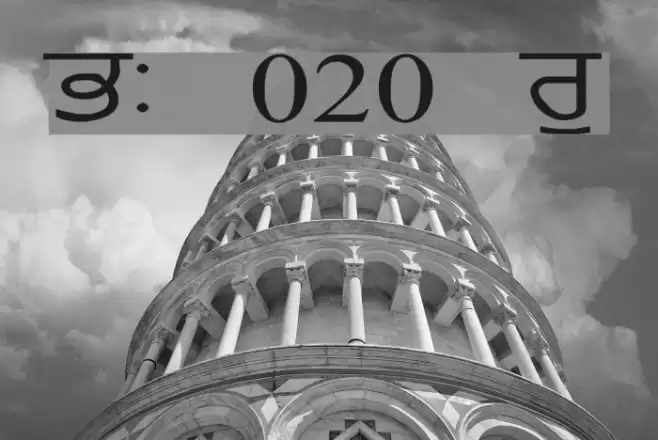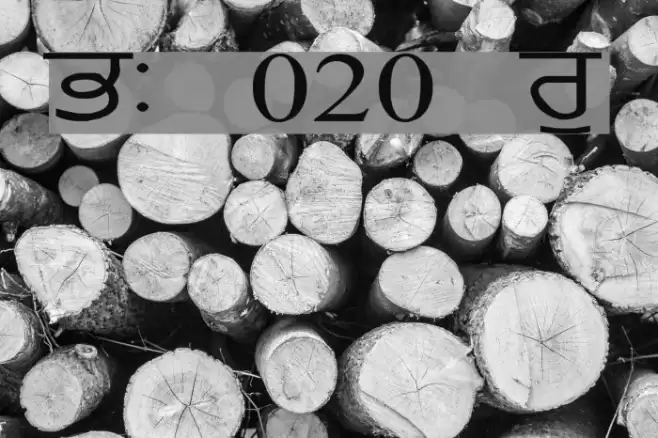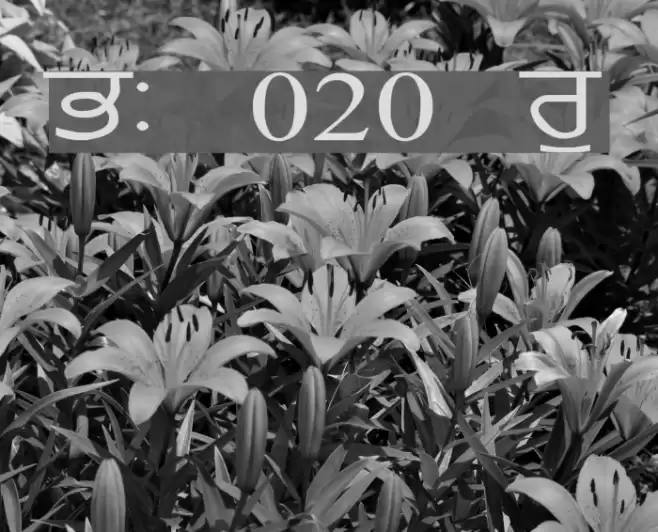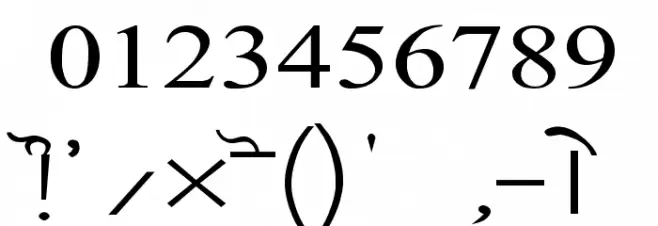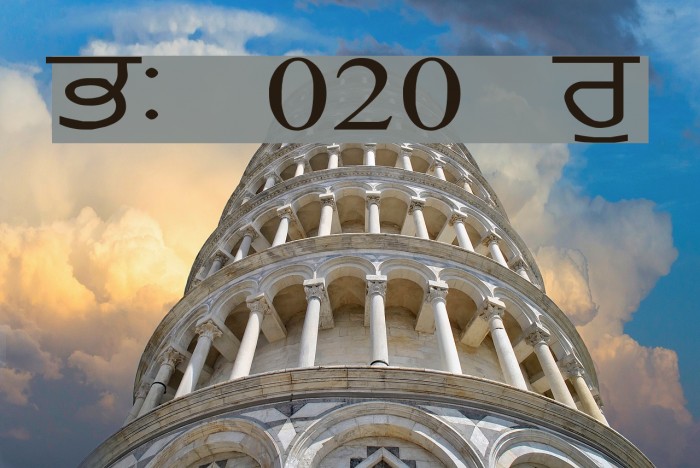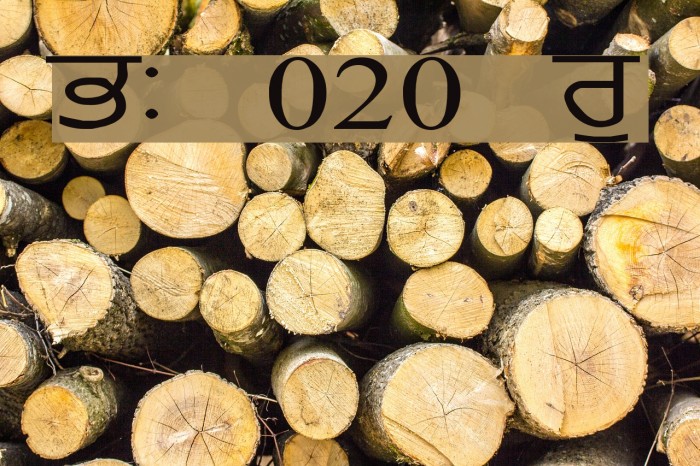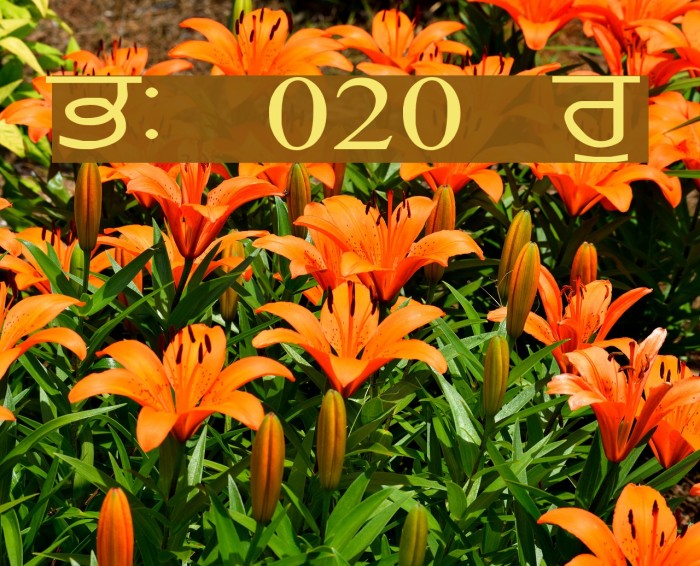
GurmukhiLys 020 Wide Font
GurmukhiLys 020 Wide Description
This font features the Gurmukhi script, characterized by its distinct horizontal line running along the top of the characters, known as the 'head stroke'. The characters are well-defined with a moderate stroke contrast, providing a clear and legible appearance. The numerals are styled to complement the script, maintaining a cohesive look. The font includes a variety of punctuation marks and special characters, which are designed to integrate seamlessly with the script. The overall design is modern yet retains traditional elements, making it suitable for both contemporary and classic applications.
A modern Gurmukhi script font with clear, legible characters and moderate stroke contrast from Asian fonts.
- Proposed Projects: Ideal for educational materials, signage, digital content, and print media that require Gurmukhi script.
- Use Case: Body text, Educational materials, Signage